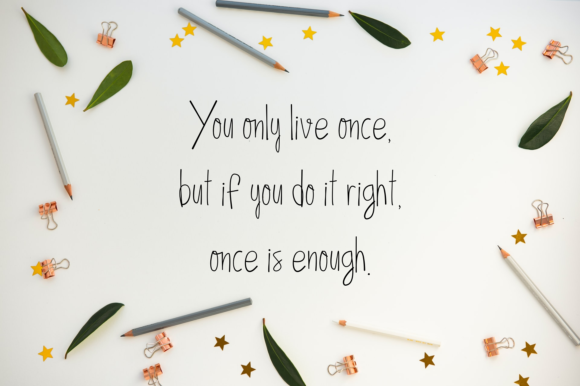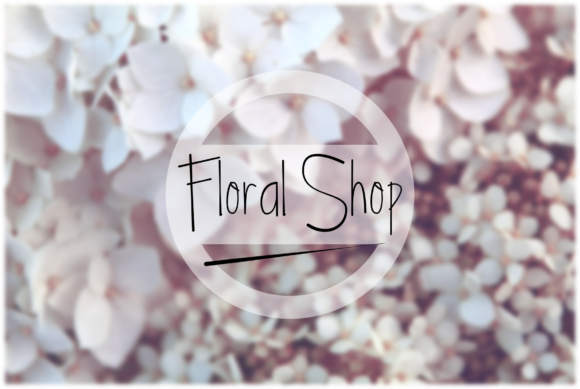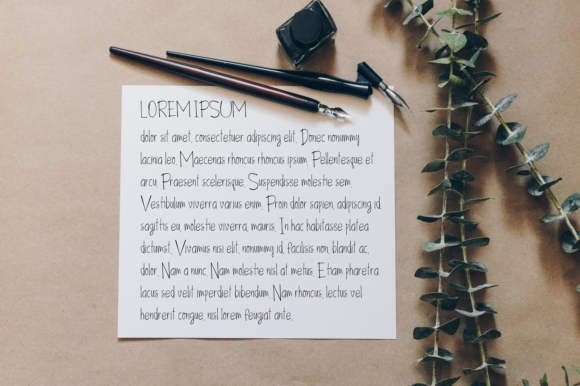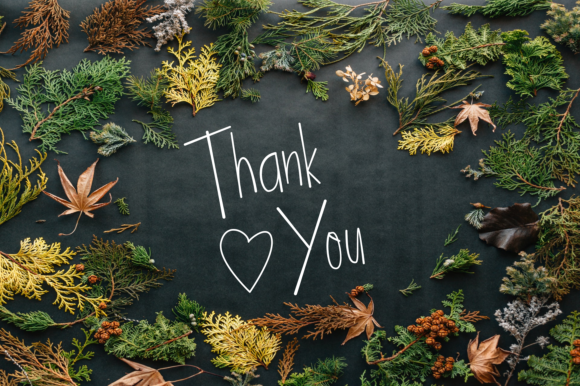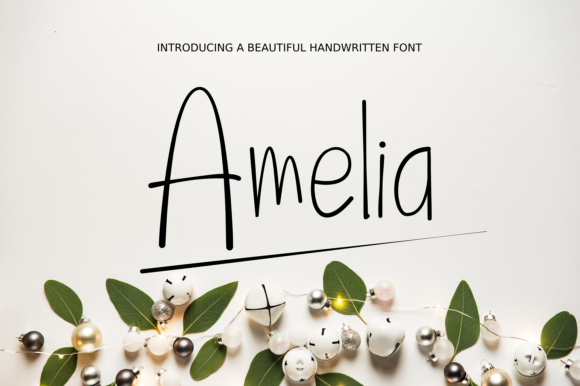
Discover the Elegance of Amelia Font: A Cool and Fashionable Handwritten Font
In the world of typography, fonts play a crucial role in bringing designs to life. Among the numerous fonts available, one that stands out for its unique blend of style and versatility is the Amelia Font. Described as a cool and fashionable handwritten font, Amelia has been making waves in the design community for its clean, thin, and smooth vibe. Whether you’re a professional designer or a crafting enthusiast, Amelia Font is poised to become your go-to choice for a wide array of design projects.
What Makes Amelia Font Special?
Amelia Font’s popularity can be attributed to its distinctive characteristics. Here are a few reasons why it has become a favorite among designers and crafters:
- Clean and Thin Lines: The font features clean and thin lines that give it a sophisticated and elegant look. This makes it perfect for designs that require a touch of refinement and class.
- Smooth Vibe: The smooth quality of Amelia Font ensures that it looks great on both digital and print media. Its fluidity makes it easy to read and aesthetically pleasing to the eye.
- Versatility: Amelia Font is incredibly versatile. It can be used for a variety of design projects, including but not limited to, branding, packaging, posters, and digital content. Its adaptability makes it a valuable asset for any designer.
- Fashionable and Cool: The font’s fashionable and cool vibe makes it particularly appealing to younger audiences and for designs that require a modern and trendy feel.
Uses of Amelia Font
The uses of Amelia Font are vast and varied. Here are some popular applications:
- Branding and Logos: Create memorable brand identities with Amelia Font. Its unique style can help your brand stand out in a crowded market.
- Digital Content: Enhance your website, blog, or social media posts with Amelia Font. Its readability and style make it perfect for digital content.
- Print Materials: From brochures and flyers to posters and business cards, Amelia Font can elevate your print materials with its elegant and modern look.
- Crafting Projects: Crafters can use Amelia Font for a variety of projects, including DIY cards, scrapbooking, and other paper crafts. Its handwritten feel adds a personal touch to any project.
Tips for Using Amelia Font Effectively
To get the most out of Amelia Font, consider the following tips:
- Pair with Complementary Fonts: Amelia Font pairs well with a variety of fonts. Experiment with different combinations to find the perfect match for your design.
- Adjust Size and Color: Play around with the size and color of Amelia Font to create visual hierarchy and emphasize key elements in your design.
- Use for Headings and Subheadings: Amelia Font is perfect for headings and subheadings. Its stylish look can help draw attention and guide the reader through your content.
Amelia Font is a stylish and versatile handwritten font that can add a cool and fashionable touch to any design project. Its clean, thin, and smooth characteristics make it a popular choice among designers and crafters. Whether you’re looking to create a brand identity, enhance your digital content, or add a personal touch to your crafting projects, Amelia Font is an excellent choice. With its wide range of applications and ease of use, it’s no wonder that Amelia Font is becoming a staple in the world of design.